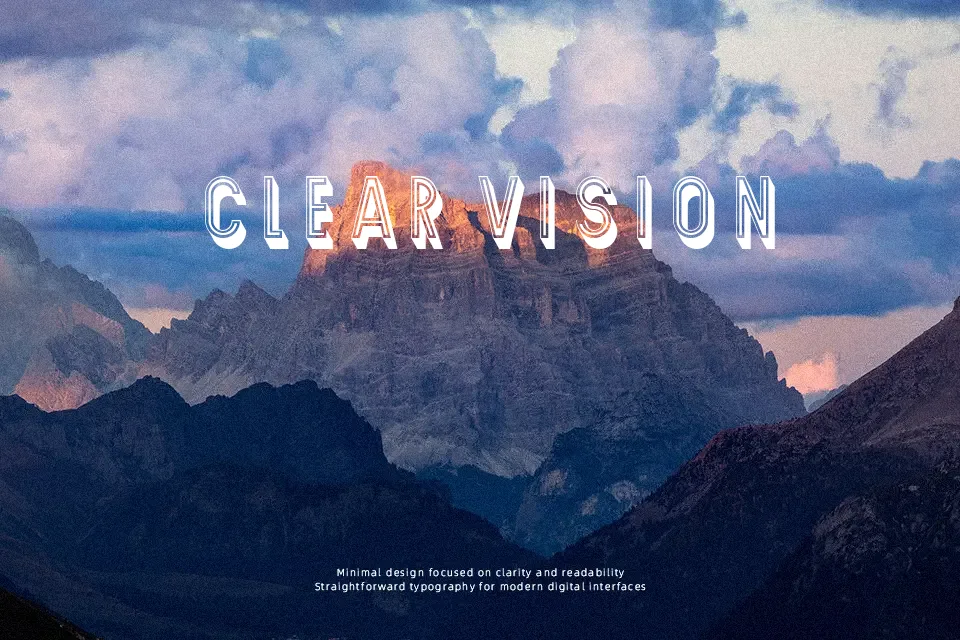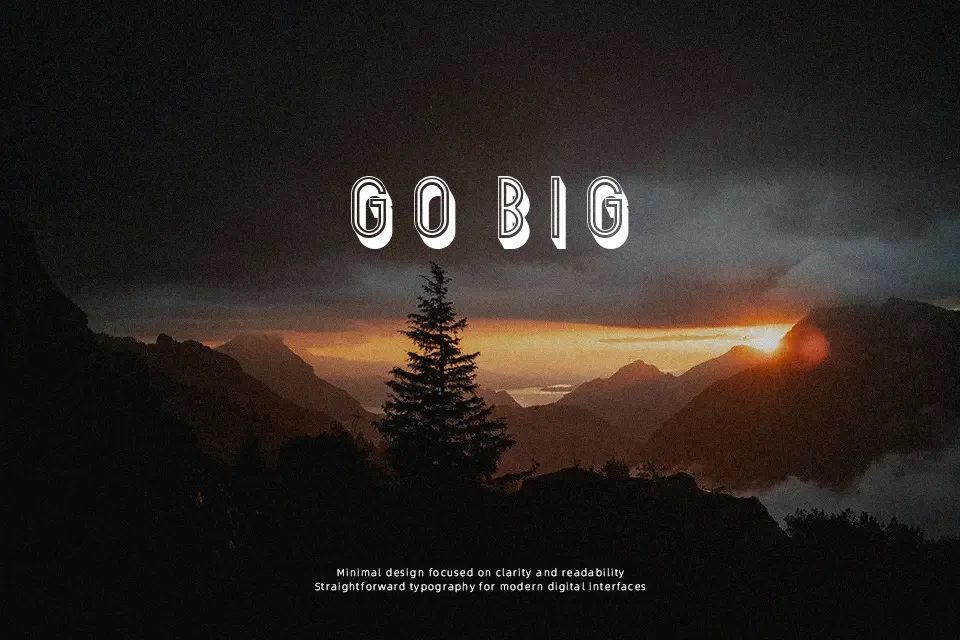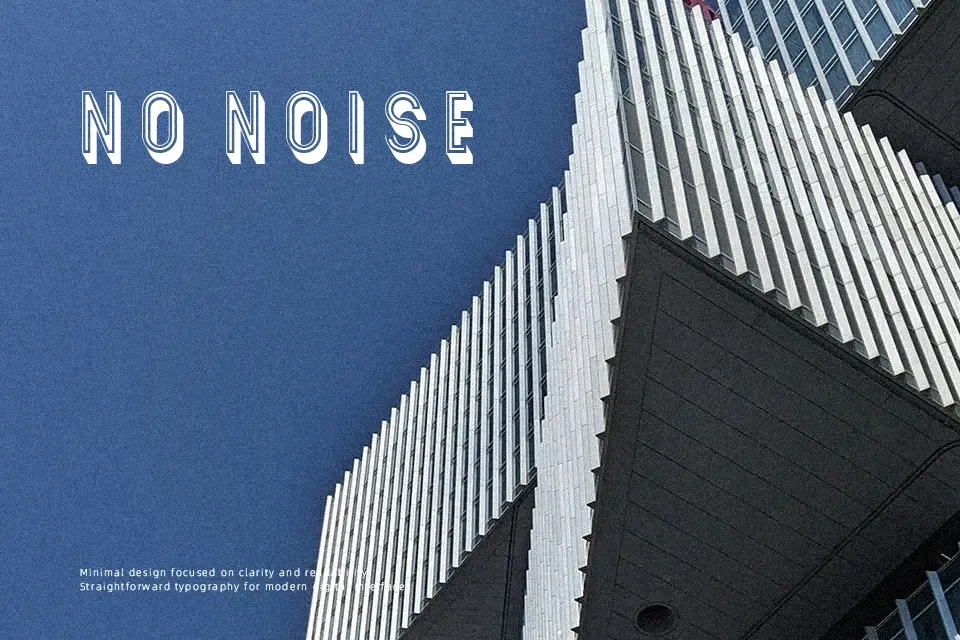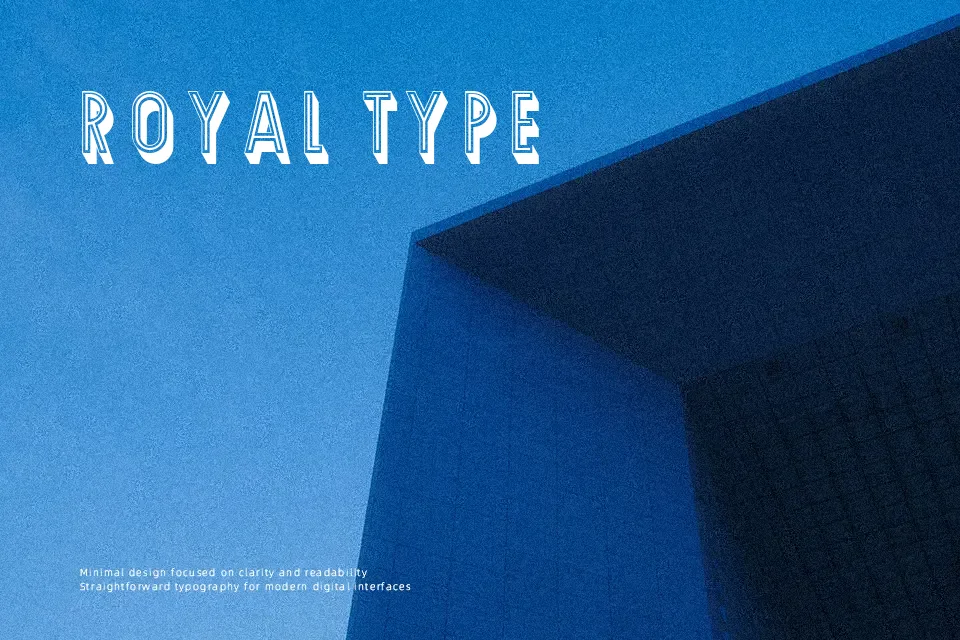
Secca Font
Built with prominent geometric forms and uniform stroke weights, Secca Font showcases a stylized display aesthetic rooted in vintage sign typography. The glyphs feature compact proportions and relatively close spacing, creating a dense typographic texture that commands attention in headline layouts. While the letterforms maintain solid individual definition at generous display sizes, the thick outlines and intricate structural contours reduce legibility when scaled down to small caption settings. The tight tracking works effectively for compact packaging labels and bold music banners, though dense paragraph arrangements quickly become difficult to read. This typeface delivers maximum graphic presence when applied sparingly to short, focal text elements.
Best For: retro poster headlines, vintage merchandise packaging, album cover artwork, apparel graphics
Not Ideal For: long paragraph text, mobile UI body copy, multi-column editorial layouts, small interface captions
Perfect for advertising, headline, and logo, with a bold and decorative style.